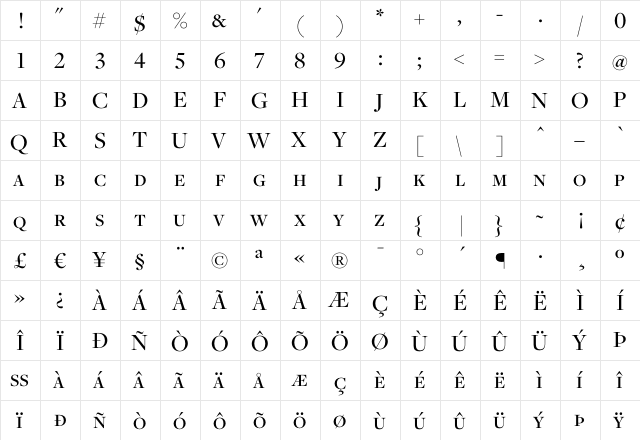
Freight Disp Medium SC Font Preview
Freight Disp Medium SC
Freight Disp Medium SC Font Details
| Style | Disp Medium SC |
| Foundry | Joshua Darden & Phil's Fonts, Inc |
| Designer | Joshua Darden |
Design Context for Freight Typeface
Freight is a composed and adaptable typeface that performs quietly and consistently across a wide range of design contexts.